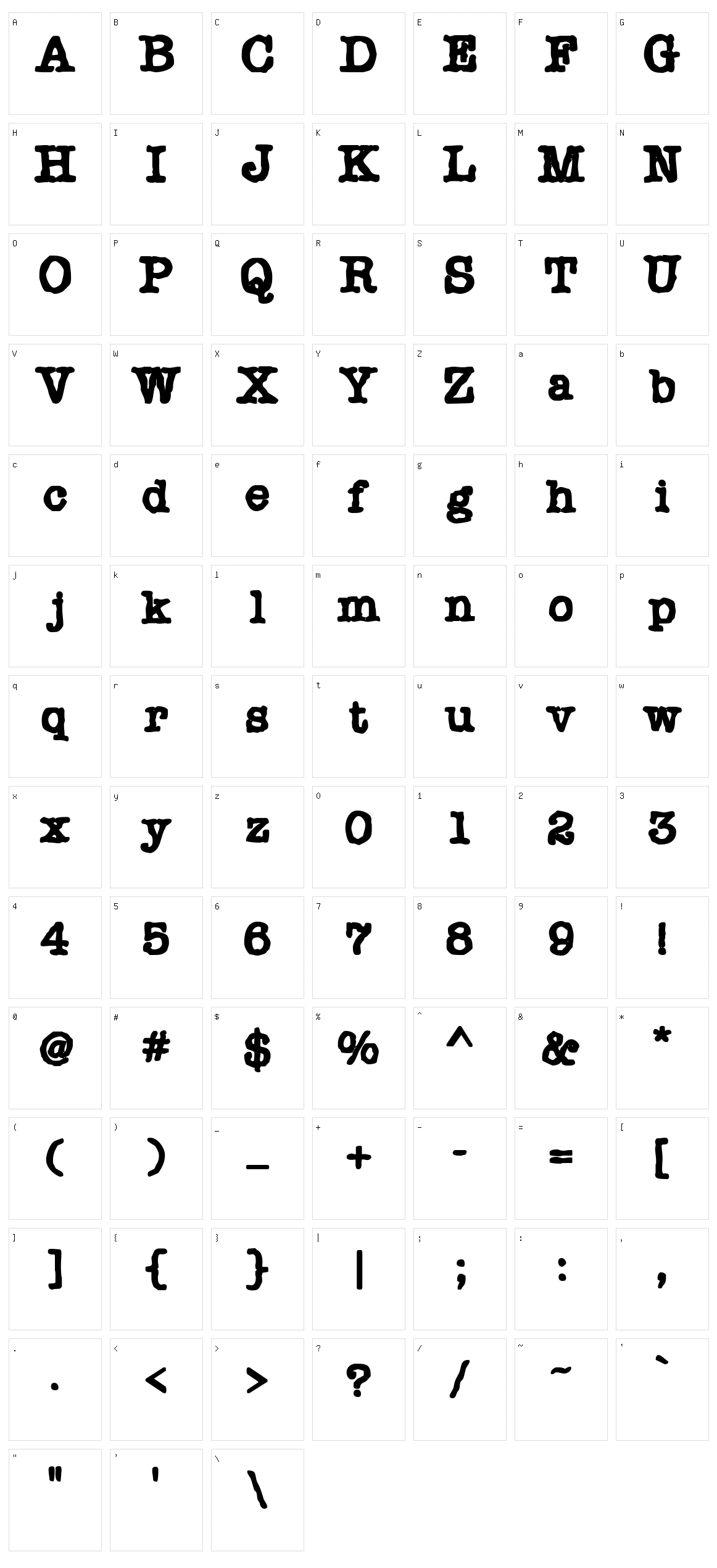
The free font Chonker is carefully designed by StimulEye Fonts, showcasing a thoughtful balance of creativity and usability and falls under the Typewriter font style. When you download the ZIP file, it contains only 23.8 KB of font files, making it lightweight and quick to download. Please review the license details below to understand permitted usage and distribution rights. If license information is not available, we recommend using this font for personal projects only or contacting the author directly for commercial usage permissions.